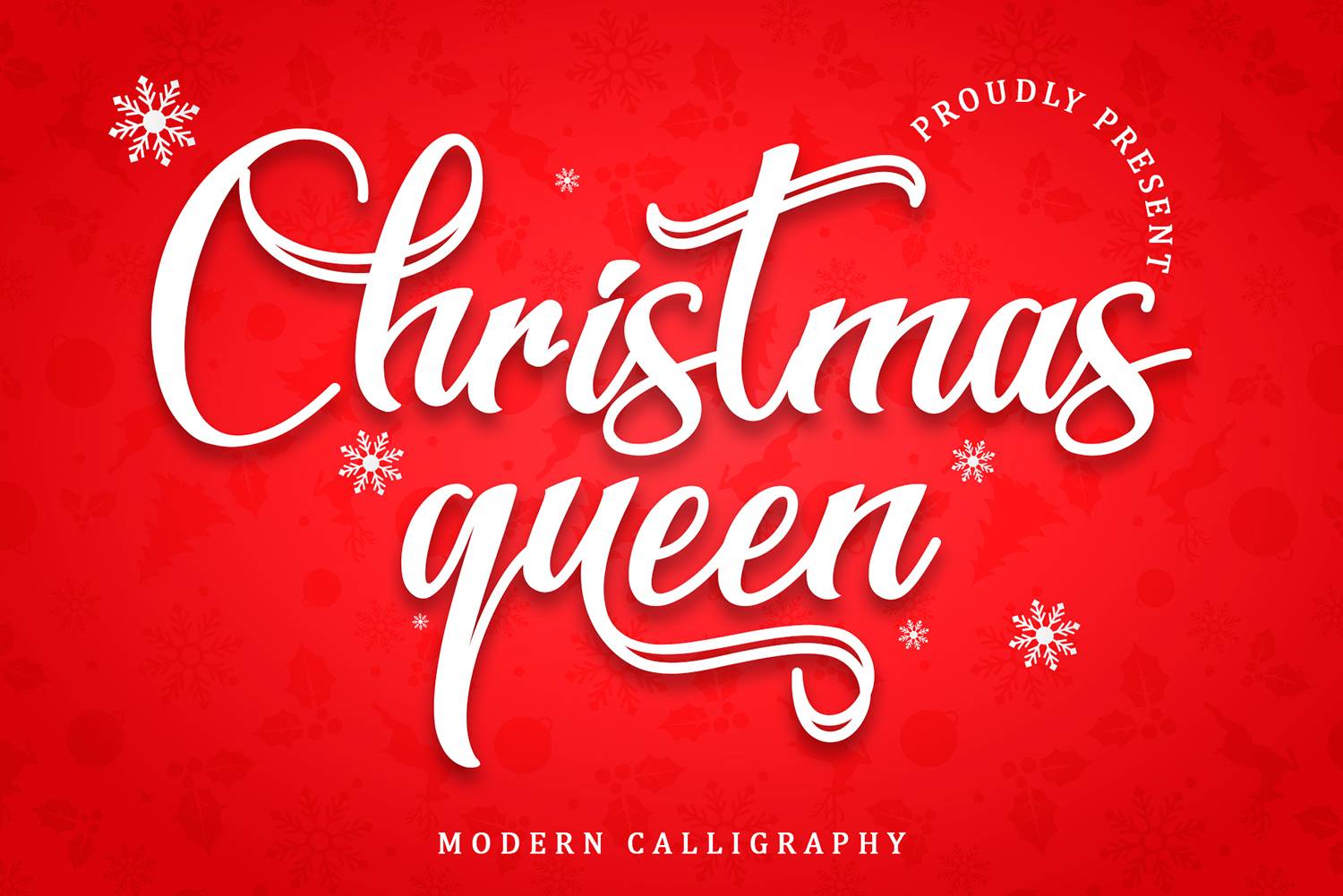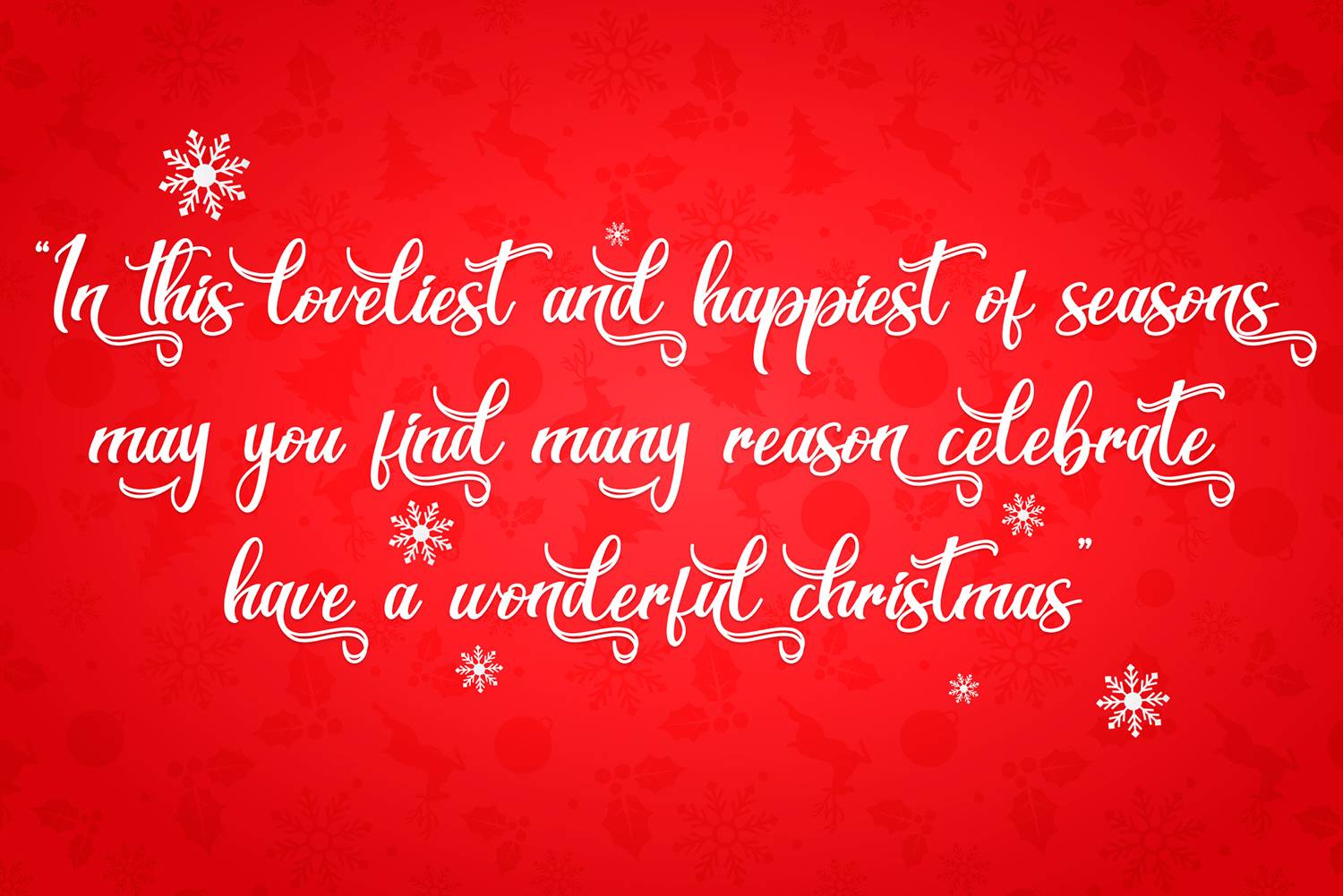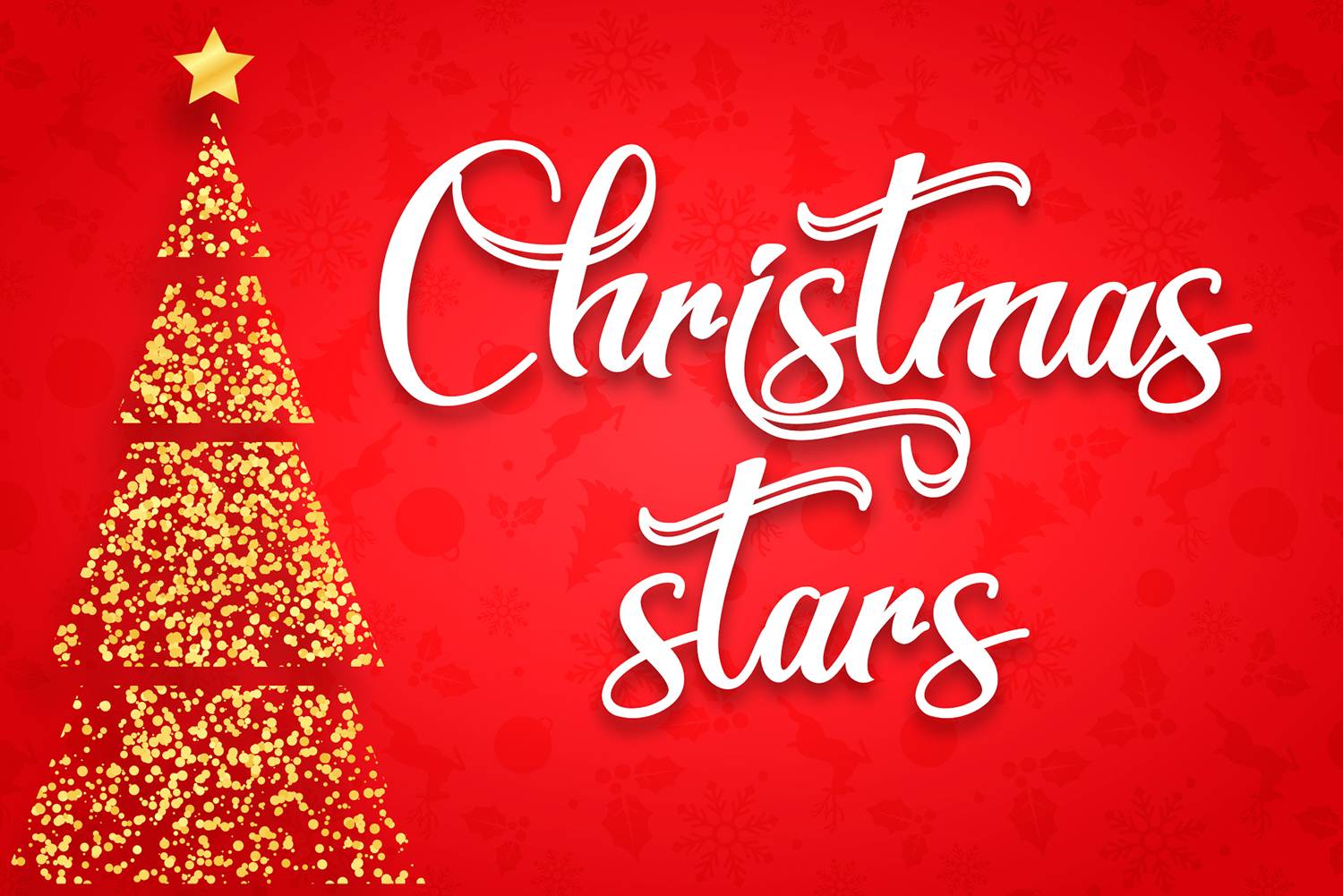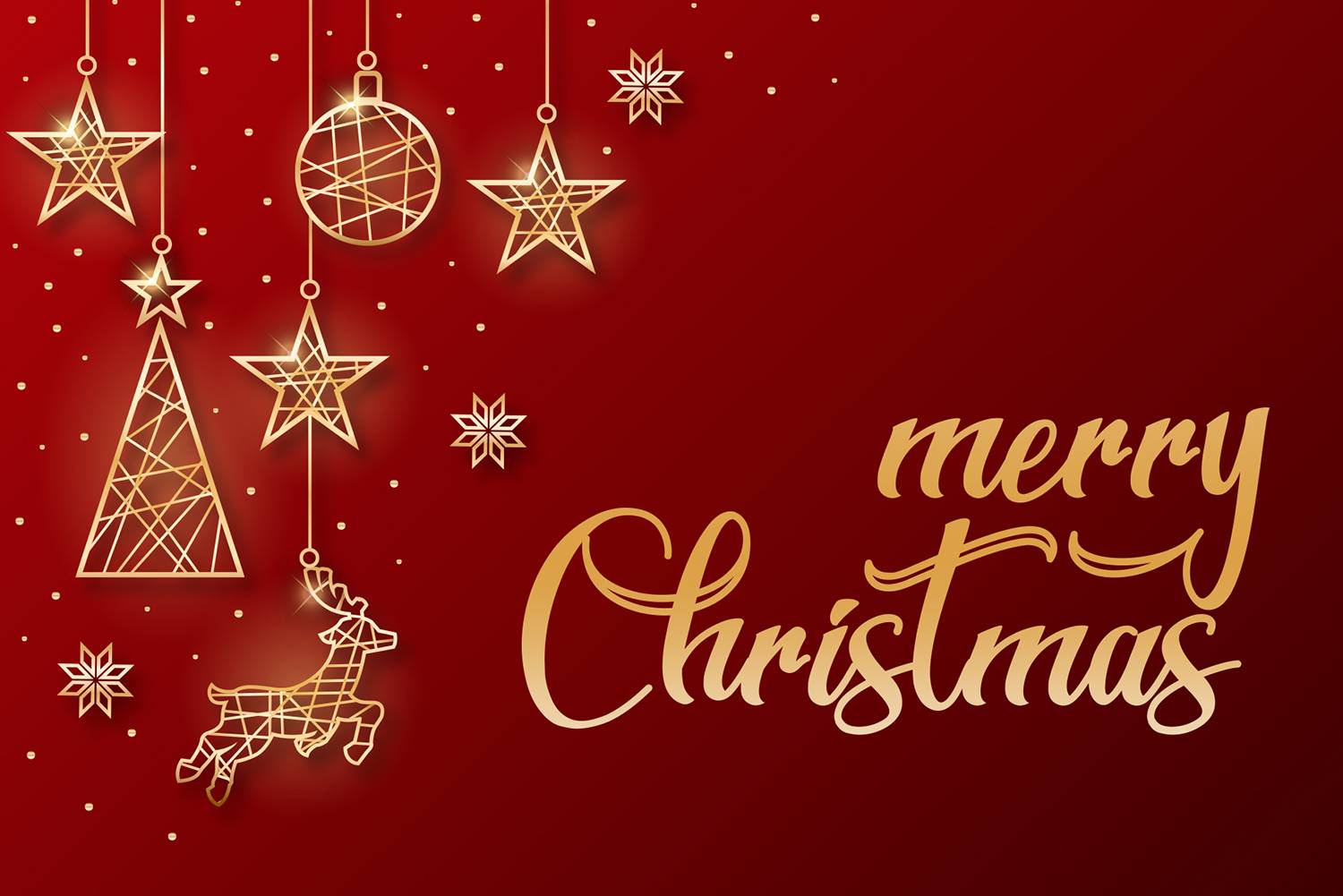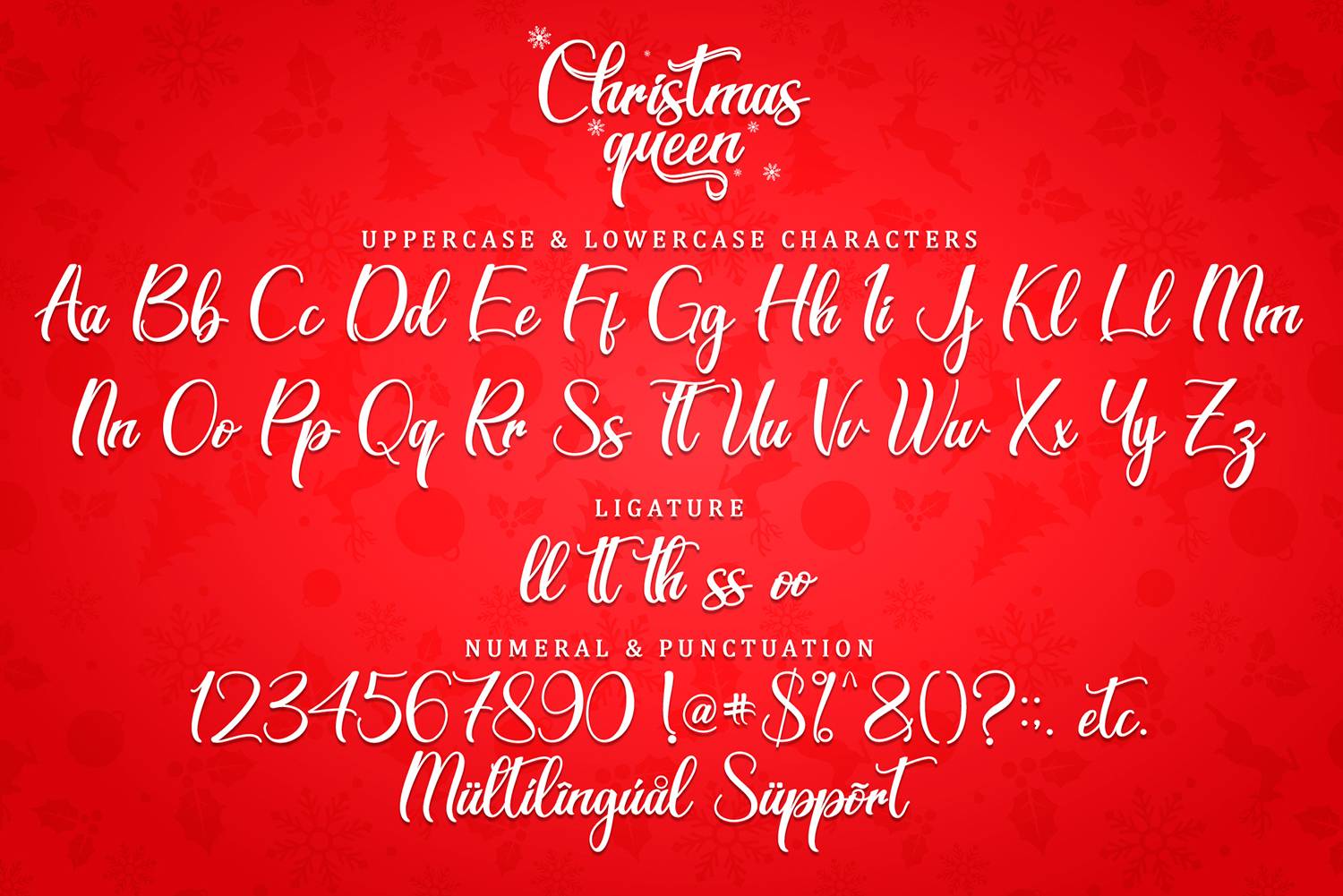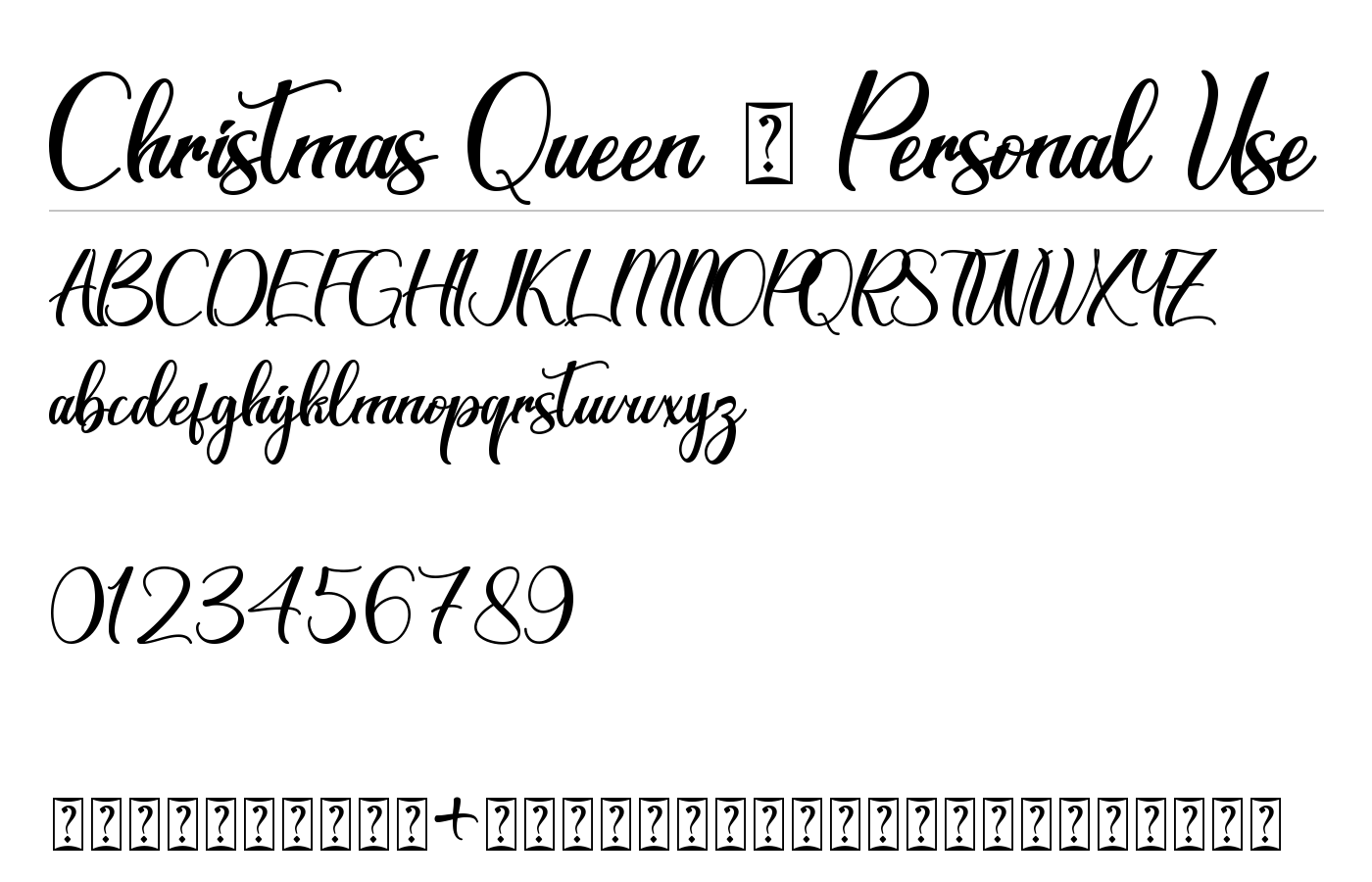
Christmas Queen is an elegant script font with a graceful, hand-lettered style that feels festive and refined. Its fluid strokes, moderate contrast, and playful swashes make it perfect for seasonal branding, invitations, and holiday-themed projects where a warm, personal touch is desired. This font works best for titles and decorative text, adding charm and sophistication to any design.
Christmas Queen Font
About Christmas Queen Font
| Font family | Christmas Queen Font |